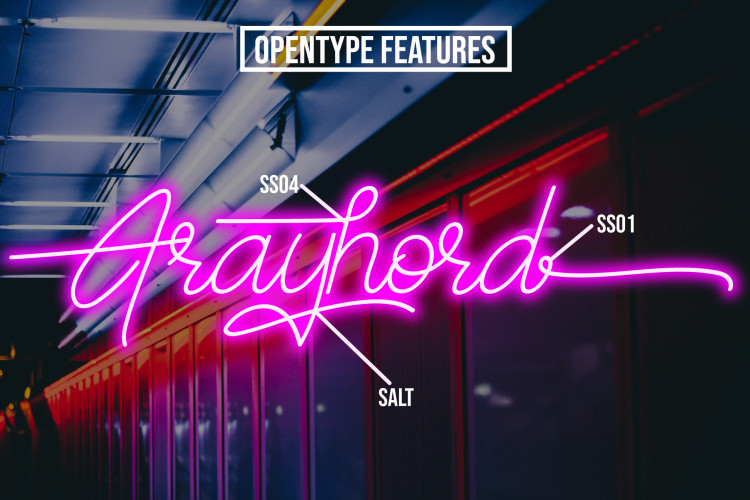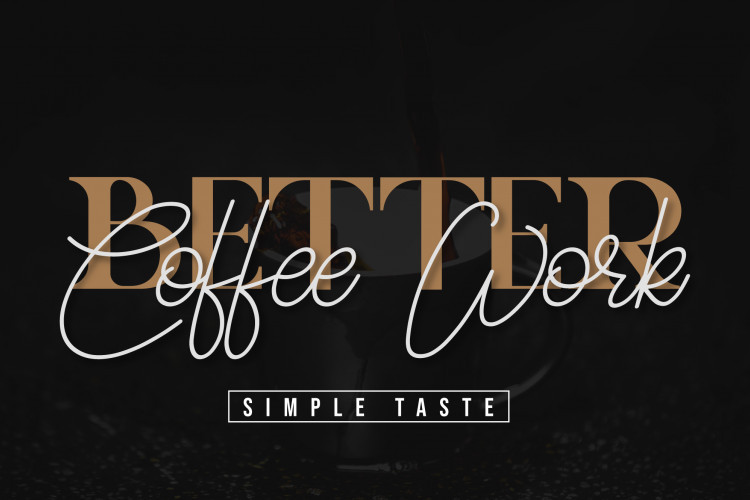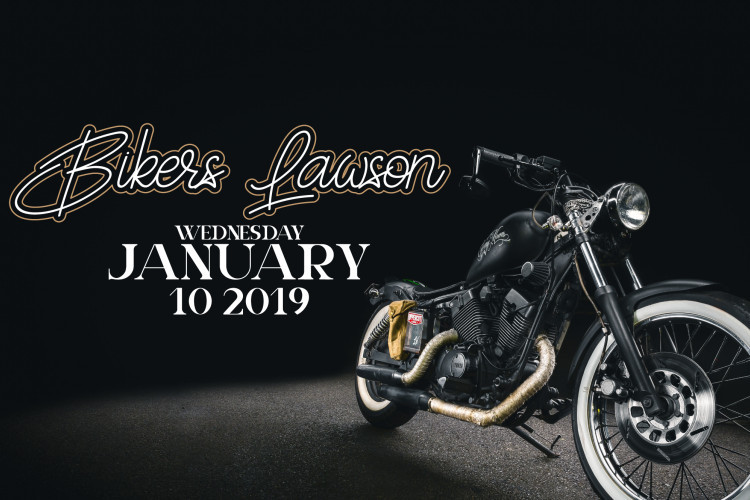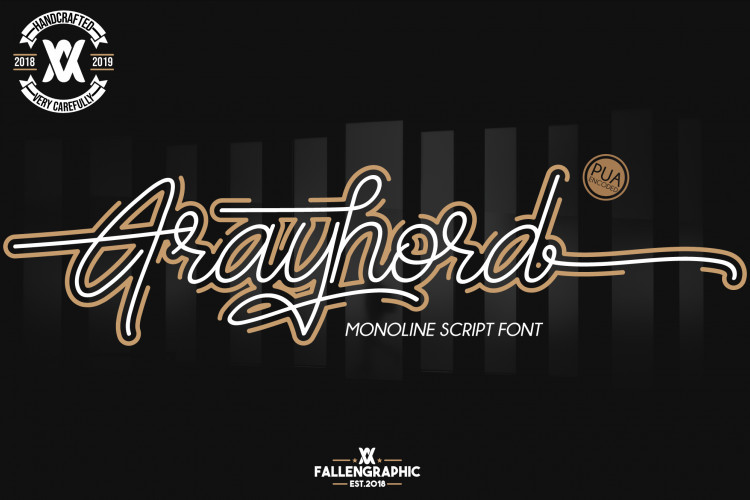
Frayhord Signature Font
Thank you for checking Frayhord Monoline Script Font! It is designed and shared by FallenGraphic Std. Frayhord Signature Font is a modern monoline script font. It has a natural feel and is perfect for signatures, branding, and much more! This font is ideal for branding and decorate your any project. Also with their help, you can create a logo or beautiful frame for your home. Or just use for your small business, book covers, stationery, marketing, blog, magazines and more.